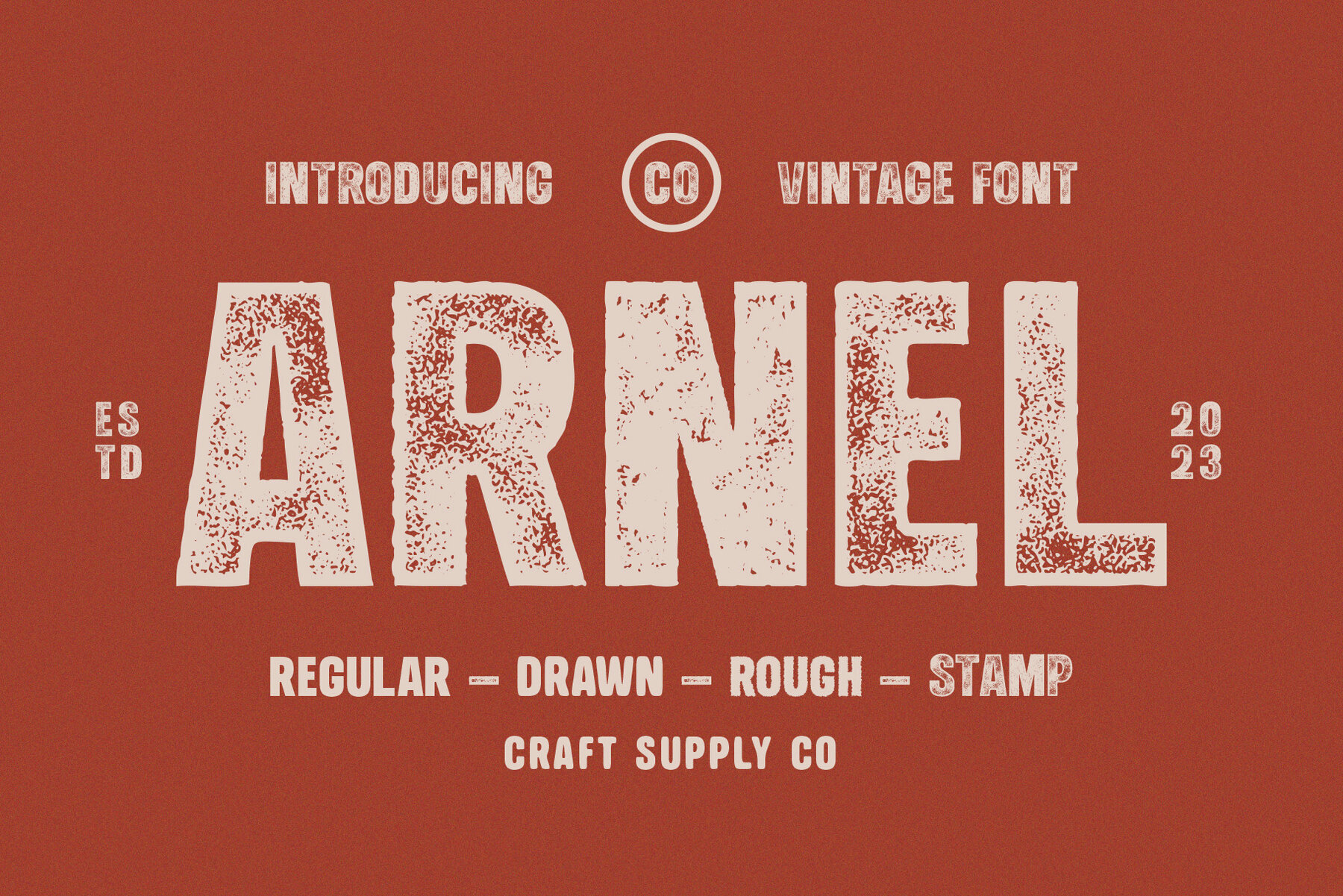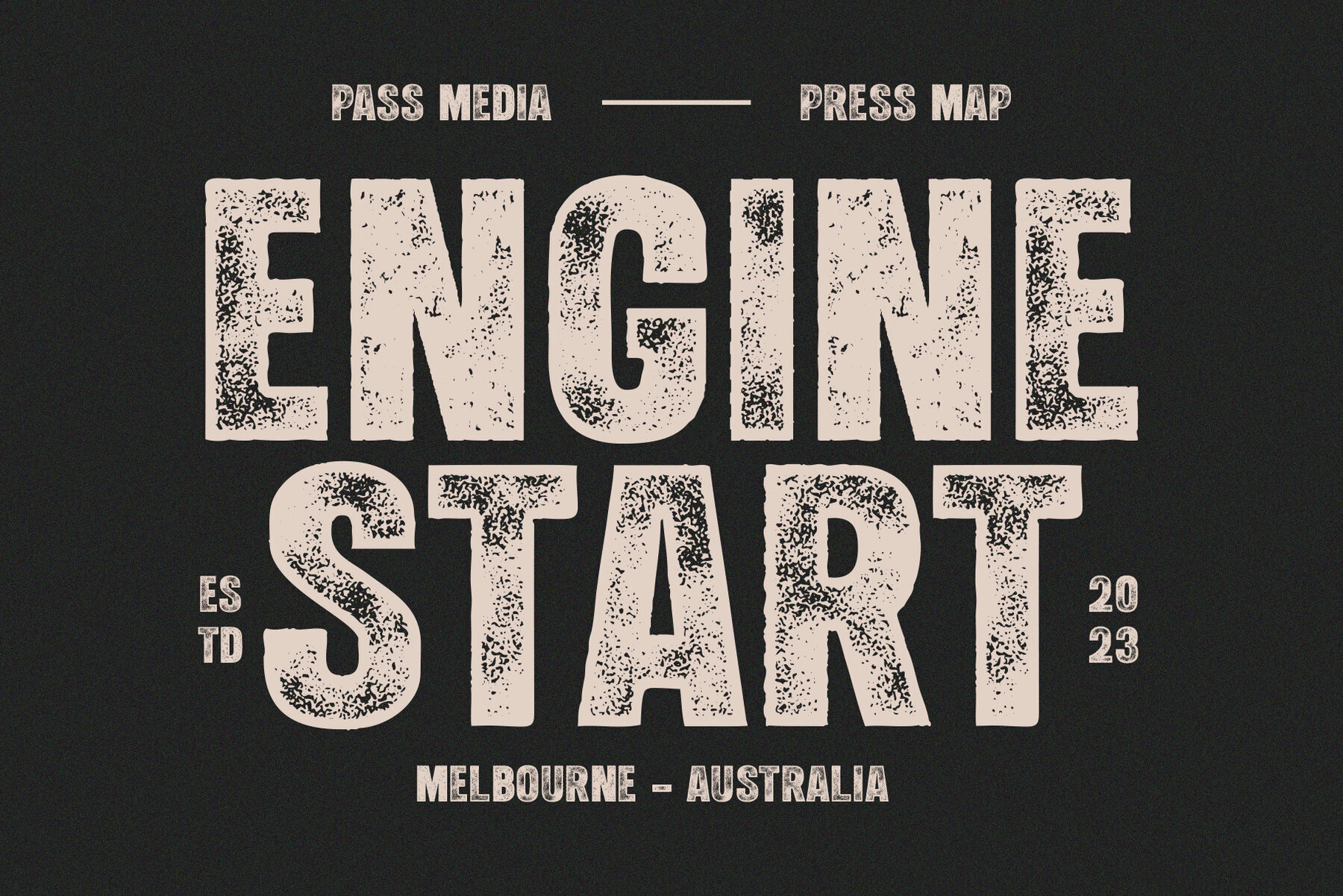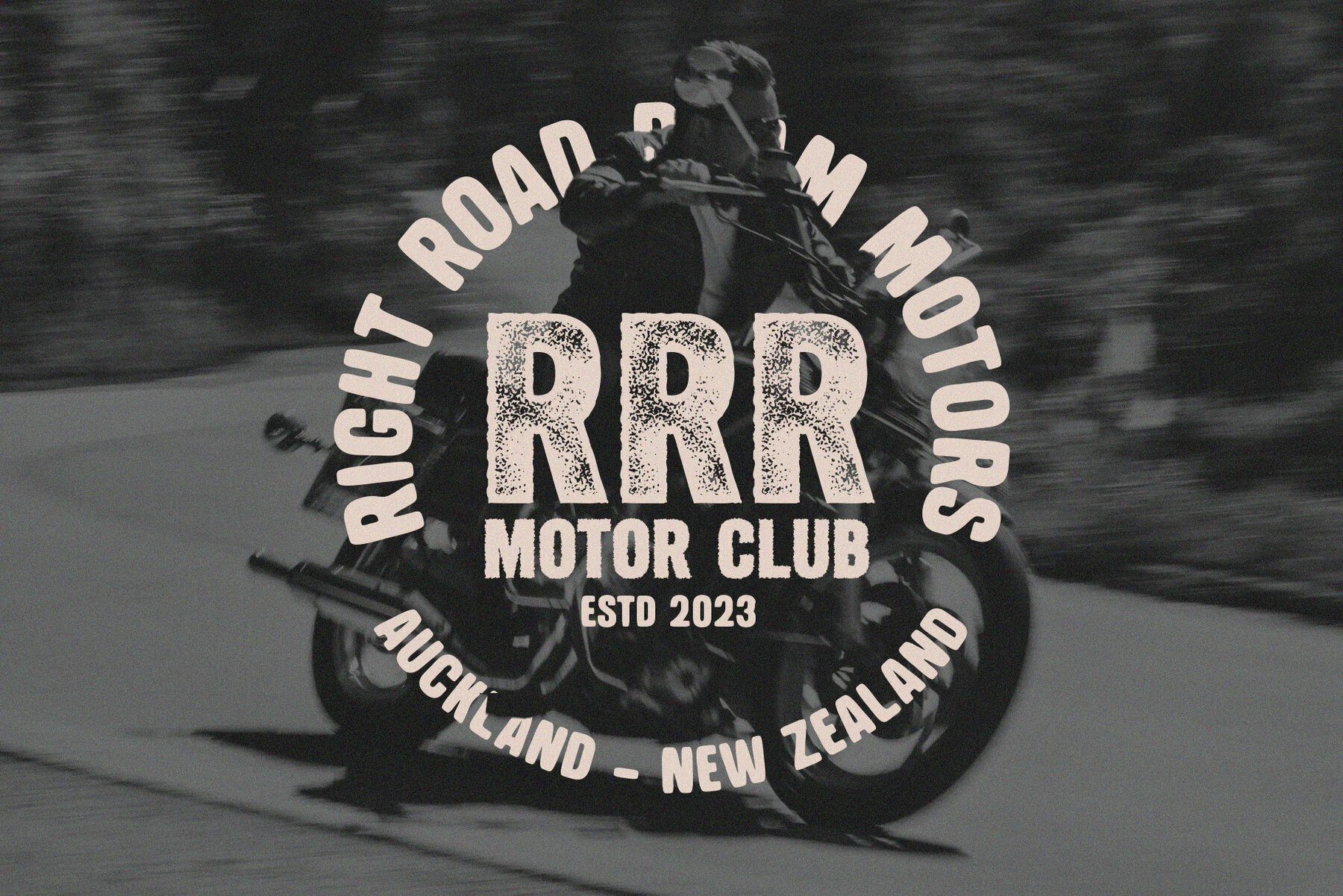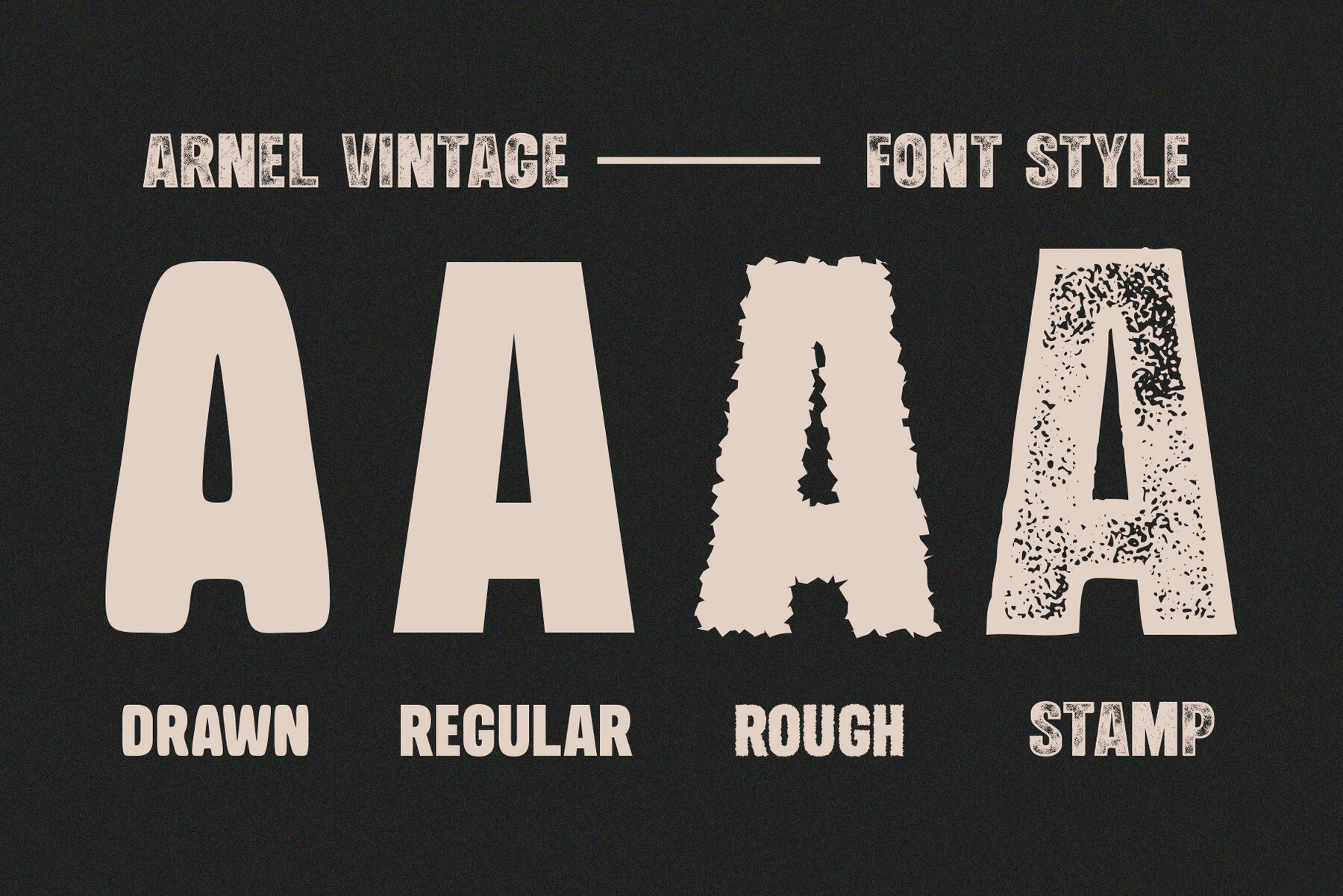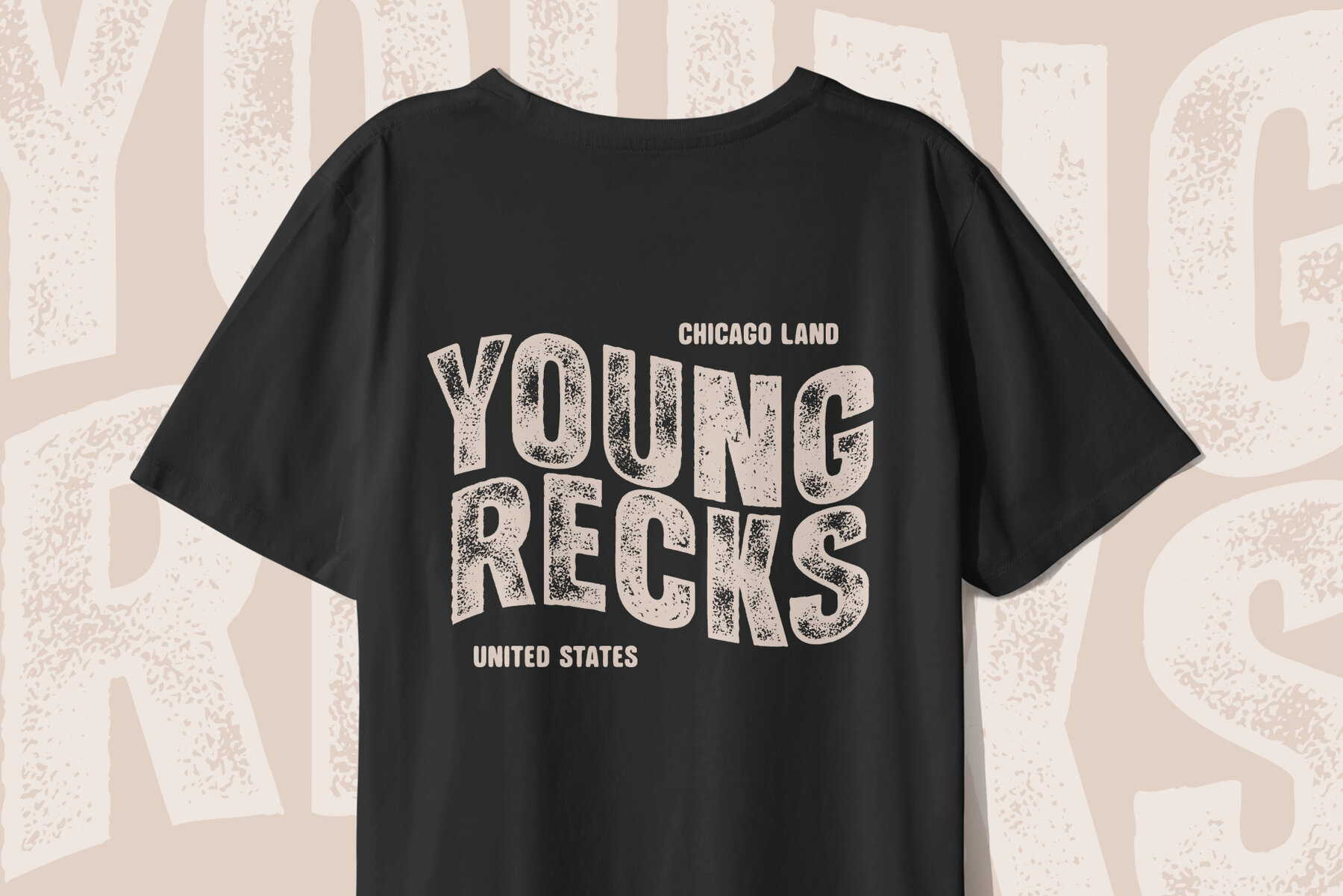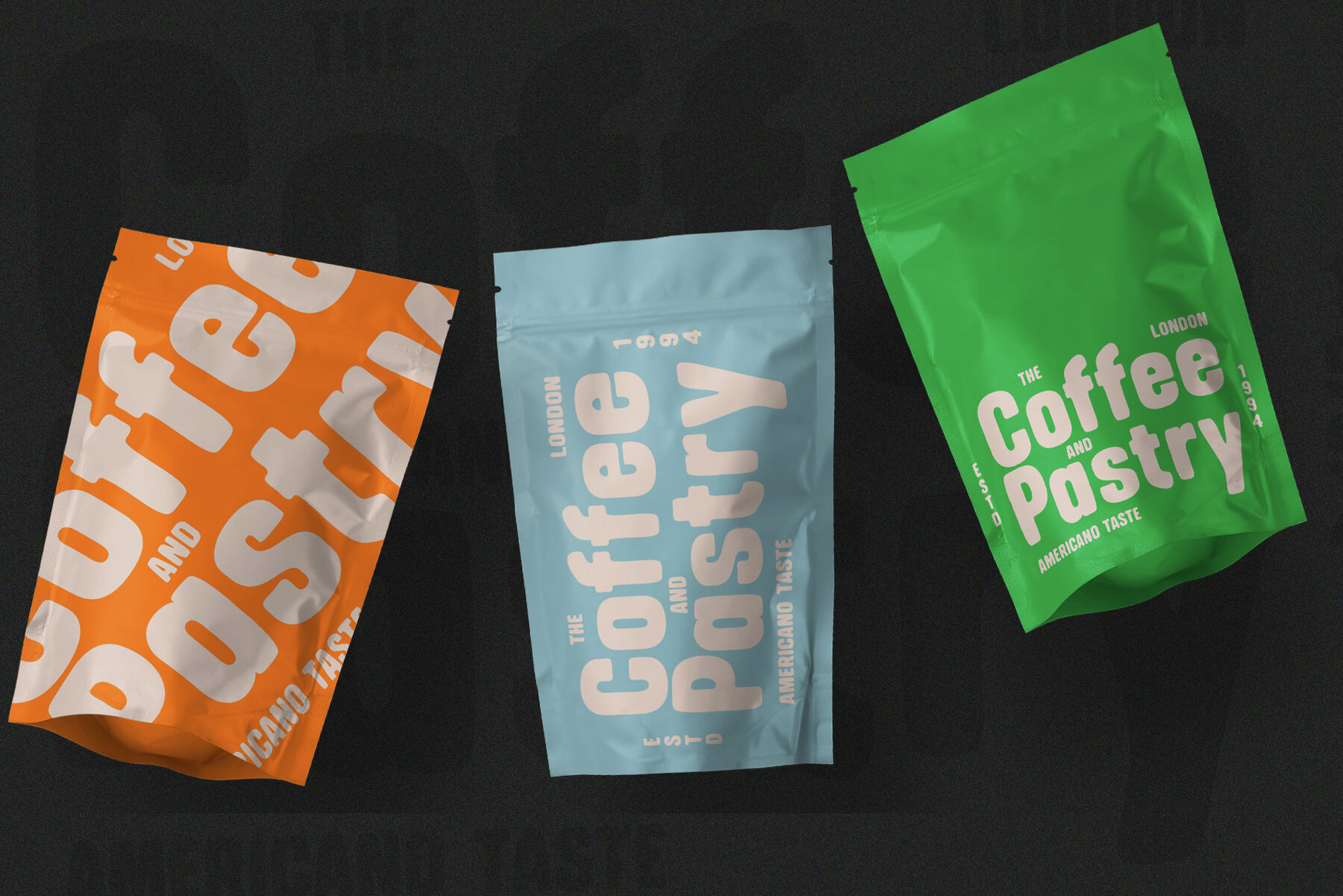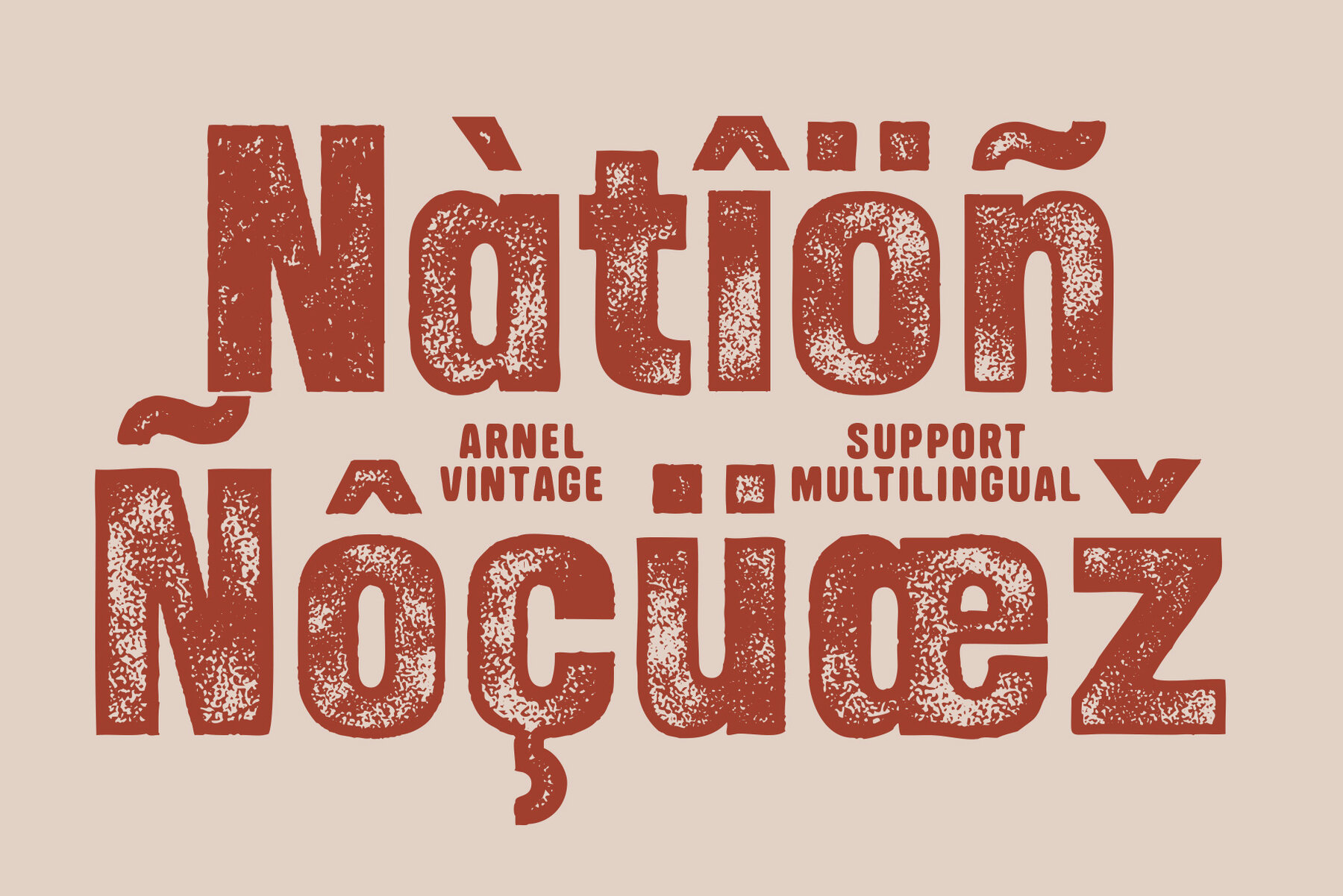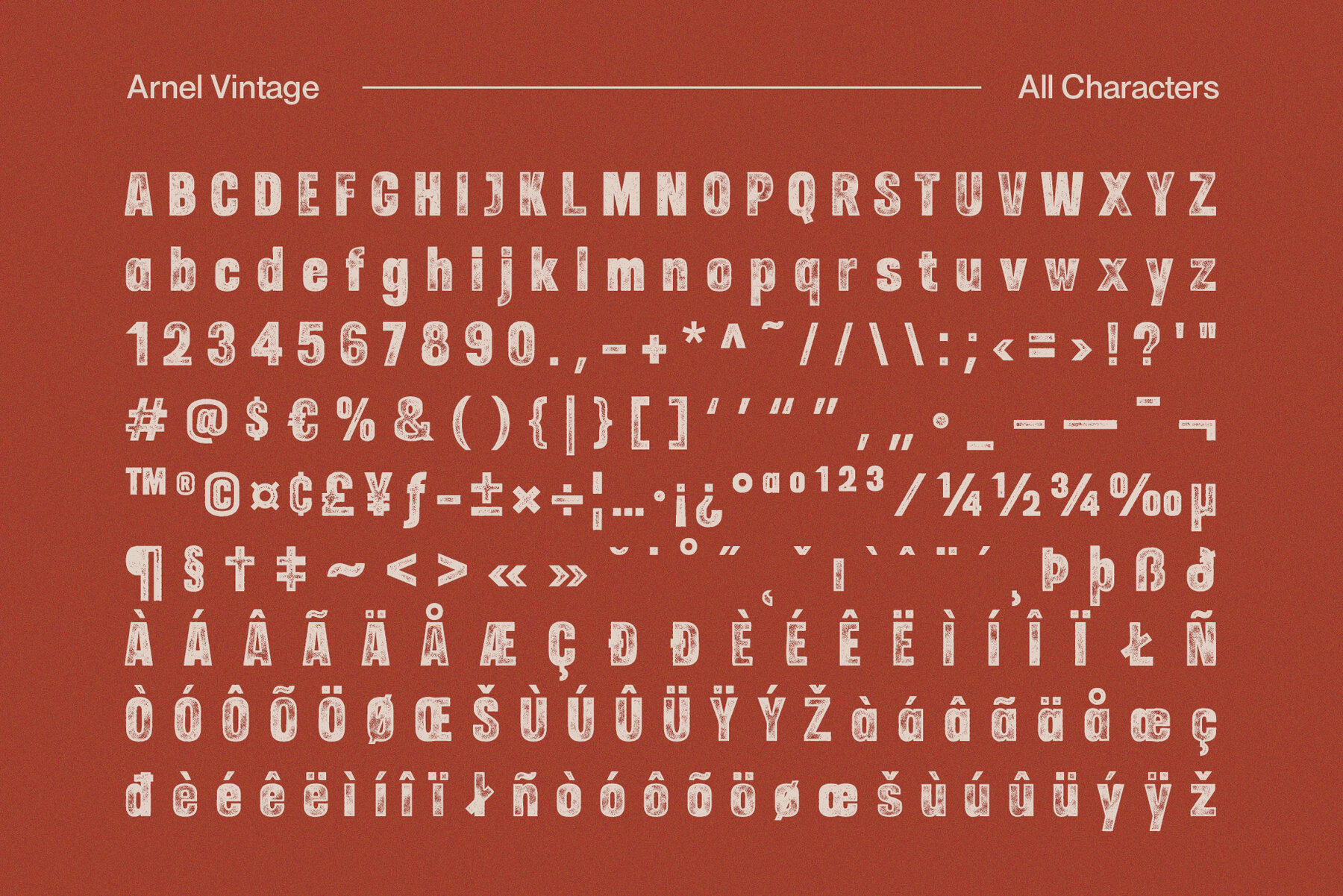
Arnel Vintage Font
Arnel Vintage Font is a striking sans-serif typeface that effortlessly embodies the rustic charm of vintage stamps, capturing a raw and hand-drawn aesthetic. This font is tailor-made for all your vintage display needs, exuding an authentic and weathered appearance that harks back to yesteryears. With Arnel, you can effortlessly transport your audience to an era of nostalgia and authenticity. Its rough edges and irregularities in letterforms evoke the tactile feel of aged ink stamps, giving your designs a genuine vintage appeal. Whether you’re creating posters, labels, or any project that calls for a touch of vintage character, Arnel Vintage Font adds a unique and nostalgic flair. It’s like unearthing a hidden treasure in the world of typography, making it the perfect choice for projects that aim to evoke a bygone era’s timeless charm and authenticity. What you get: Features: